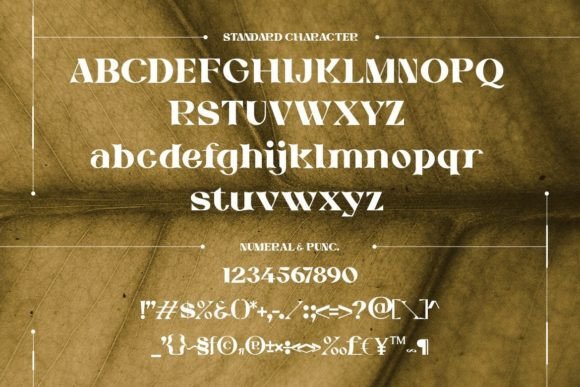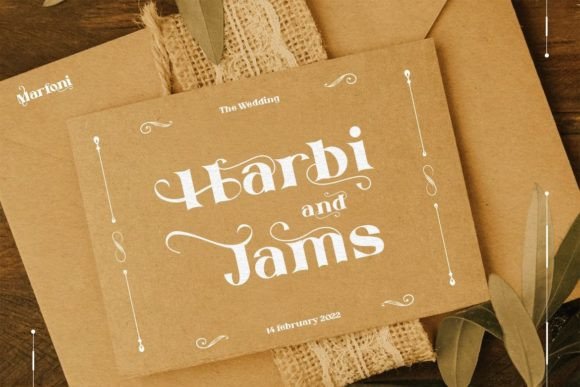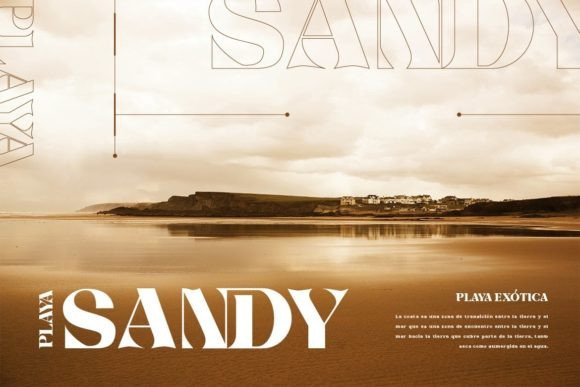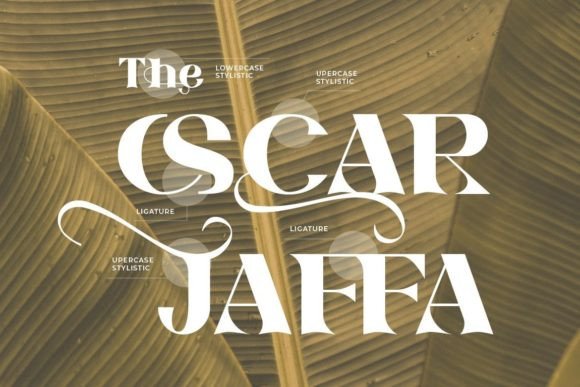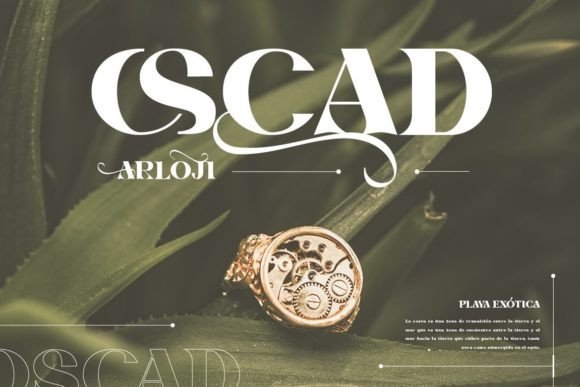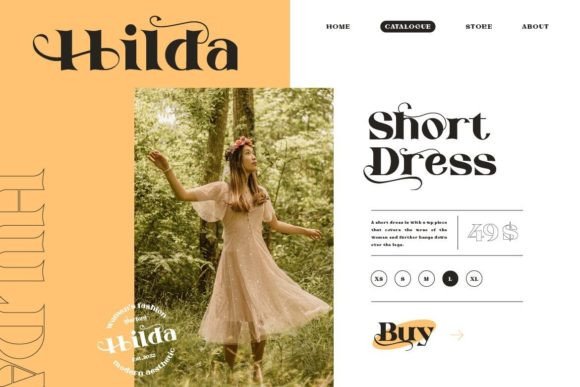
Introduction to Marfoni Font
Marfoni is an Elegant stylish and playful modern serif Typeface.
This font is good for logo design, Social media, Movie Titles, Books Titles, short text even long text letters, and good for your secondary text font with sans or serif .